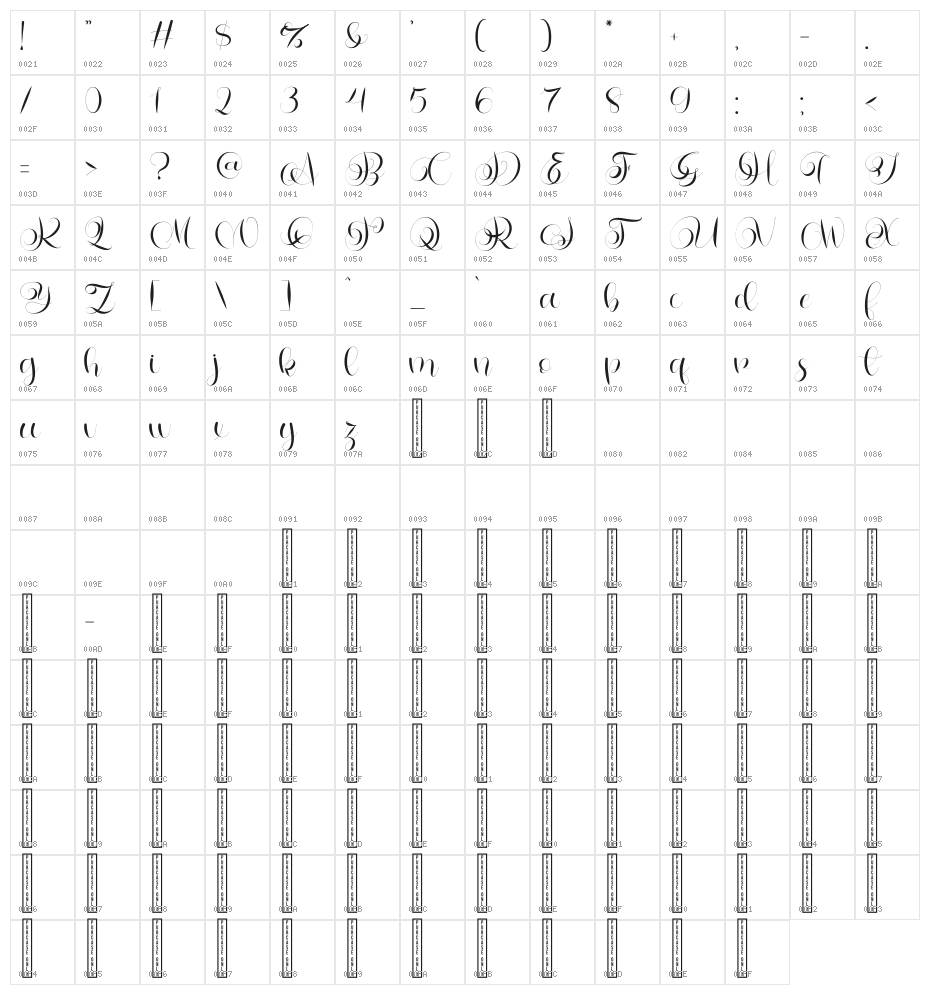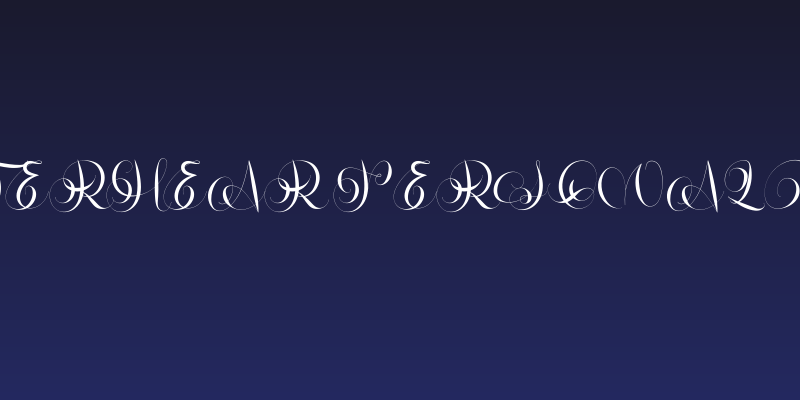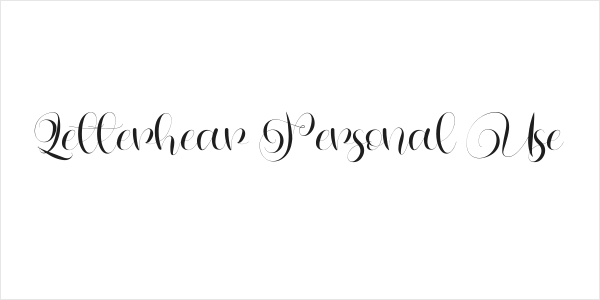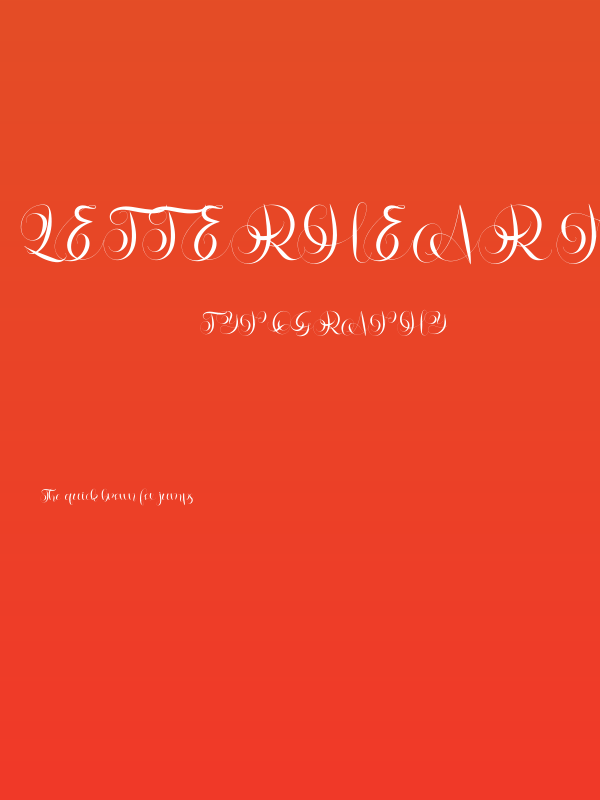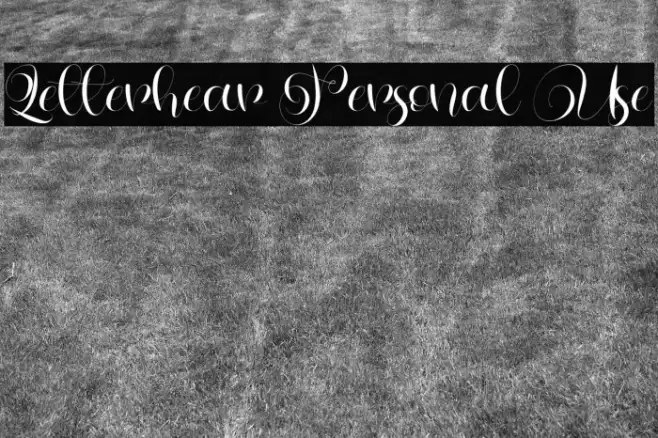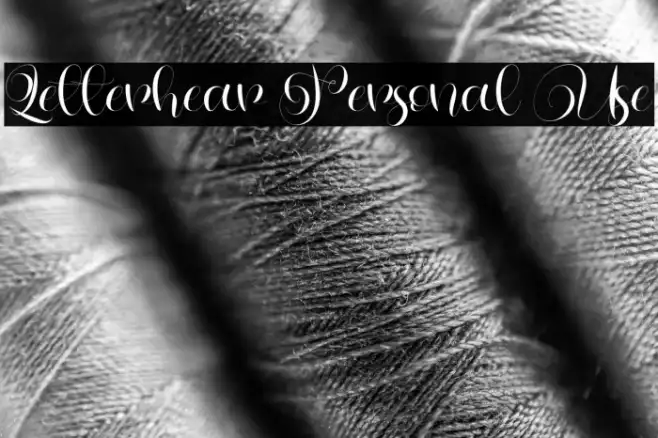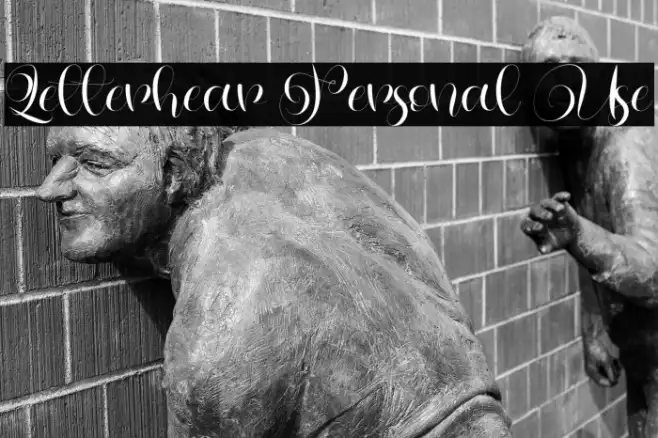
Letterhear Personal Use Font
Letterhear Personal Use Description
This font features an elegant and flowing script style, characterized by its graceful curves and elaborate swashes. The uppercase letters are particularly ornate, with extended flourishes that add a sense of sophistication and drama. The lowercase letters maintain a consistent flow, with smooth connections that enhance readability despite the decorative nature. The numerals are equally stylish, maintaining the same fluidity and artistic flair. Special characters are thoughtfully designed to match the overall aesthetic, making this font suitable for creative and formal applications. The overall impression is one of elegance and artistic expression, making it ideal for projects that require a touch of class and creativity.